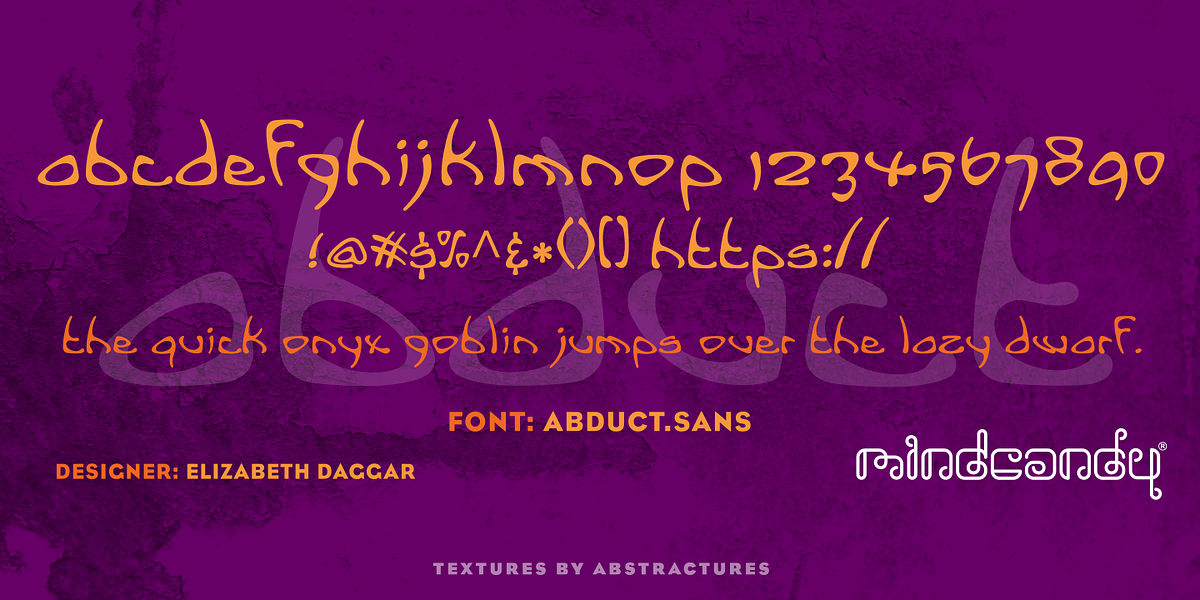
Abduct Sans™
Abduct.Sans™ is a lowercase display font characterized by its unique triangular shapes. It exhibits high contrast between thick and thin strokes, giving it a distinctive 'rough' handmade appearance. The design evokes a sci-fi theme, making it suitable for uses like Halloween graphics or futuristic branding.